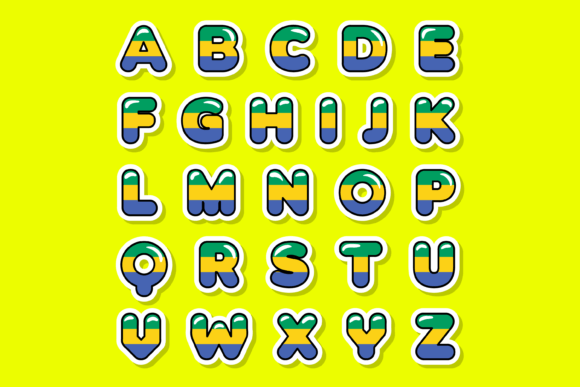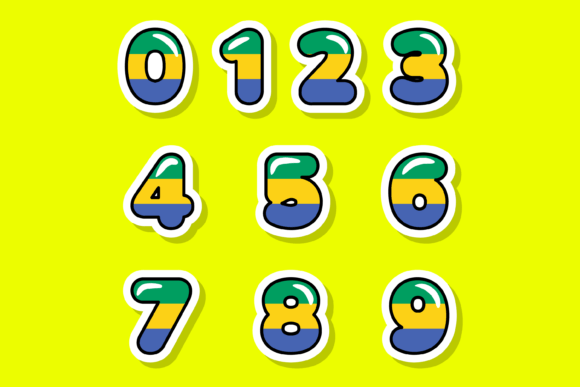
Introducing Gabon Font: The Vibrant Color Font Inspired by the Gabonese Flag
Are you tired of using the same old fonts for your designs and crafts? Look no further! Gabon Font is an incredibly cool color font designed in the style of the Gabonese Flag. Whether you use it for custom designs, DIY crafts, or just any creation that requires a lovely touch, this font will be an amazing choice. In this article, we’ll dive into the world of Gabon Font, exploring its features, uses, and benefits for designers and crafters alike.
What is Gabon Font?
Gabon Font is a unique color font that takes inspiration from the vibrant colors of the Gabonese Flag. The font features a bold and playful design, making it perfect for adding a pop of color to your designs. With its stunning color scheme and beautiful typography, Gabon Font is sure to make your creations stand out.
Key Features of Gabon Font
- Colorful Design: Gabon Font features a stunning color scheme inspired by the Gabonese Flag, making it perfect for designs that require a bold and vibrant look.
- Playful Typography: The font features a playful and fun typography, making it perfect for DIY crafts, custom designs, and other creative projects.
- High-Quality Design: Gabon Font is designed with high-quality graphics, ensuring that it looks great in any design or craft project.
- Easily Customizable: The font is easily customizable, allowing you to adjust the colors, size, and style to fit your design needs.
Uses of Gabon Font
Gabon Font is a versatile font that can be used in a variety of design and craft projects. Here are some ideas to get you started:
- Custom Designs: Use Gabon Font to add a pop of color to your custom designs, such as logos, brochures, and business cards.
- DIY Crafts: Add a personal touch to your DIY crafts, such as scrapbooking, card making, and other paper crafts.
- Social Media Graphics: Use Gabon Font to create eye-catching social media graphics, such as Facebook posts, Instagram stories, and Twitter headers.
- Signs and Banners: Use Gabon Font to create colorful signs and banners for events, parties, and other celebrations.
Benefits of Using Gabon Font
Gabon Font offers a range of benefits for designers and crafters. Here are some of the advantages of using this amazing font:
- Unique and Eye-Catching: Gabon Font is a unique and eye-catching font that will make your designs stand out from the crowd.
- Easily Readable: Despite its bold and colorful design, Gabon Font is easily readable, making it perfect for designs that require a clear and concise message.
- Time-Saving: With Gabon Font, you can save time and effort in creating your designs, as it offers a pre-designed solution that can be easily customized.
Tips for Using Gabon Font
Here are some tips for using Gabon Font in your designs and crafts:
- Experiment with Colors: Don’t be afraid to experiment with different colors and combinations to find the perfect look for your design.
- Use it Sparingly: Use Gabon Font sparingly to add a pop of color to your design, rather than overusing it and overwhelming the viewer.
- Pair it with Other Fonts: Pair Gabon Font with other fonts to create a unique and interesting contrast.
- Have Fun: Most importantly, have fun and be creative with Gabon Font!
In conclusion, Gabon Font is an amazing color font that offers a range of benefits and uses for designers and crafters. With its unique and eye-catching design, easily readable typography, and cost-effective solution, Gabon Font is the perfect choice for adding a pop of color to your designs and crafts. So why not give it a try and see the difference it can make?